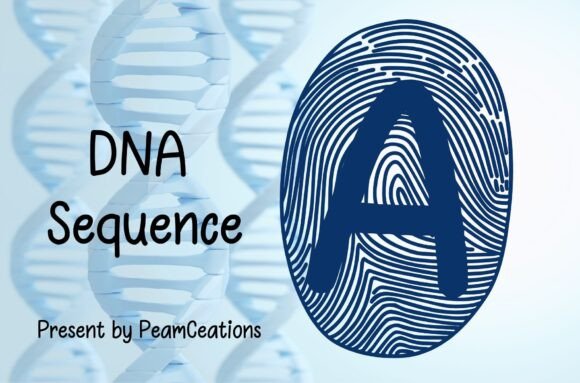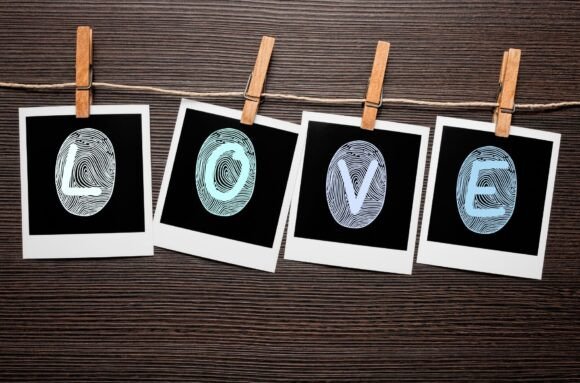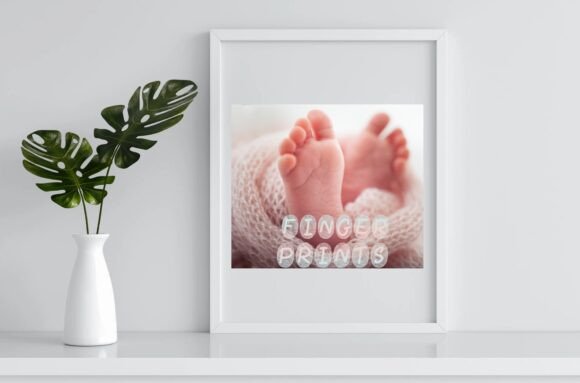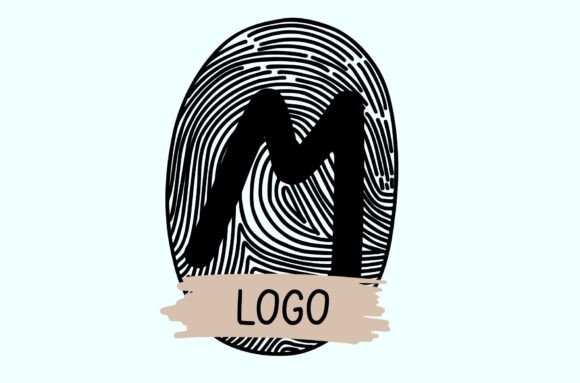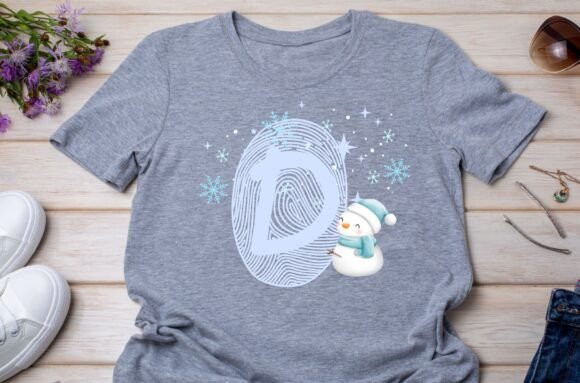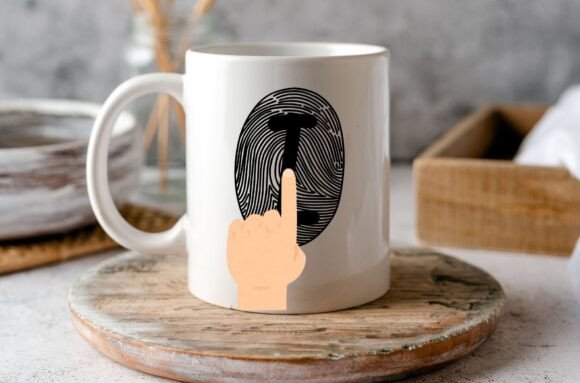
Introduction to Fingerprints Font
Fingerprints is a decorative font where each letter is creatively designed to look like it’s part of a fingerprint pattern.
The letters are unique and stylish, blending text with the interesting swirls and lines found in actual fingerprints, making it a fun choice for eye-catching designs .
Key Features of Fingerprints Font